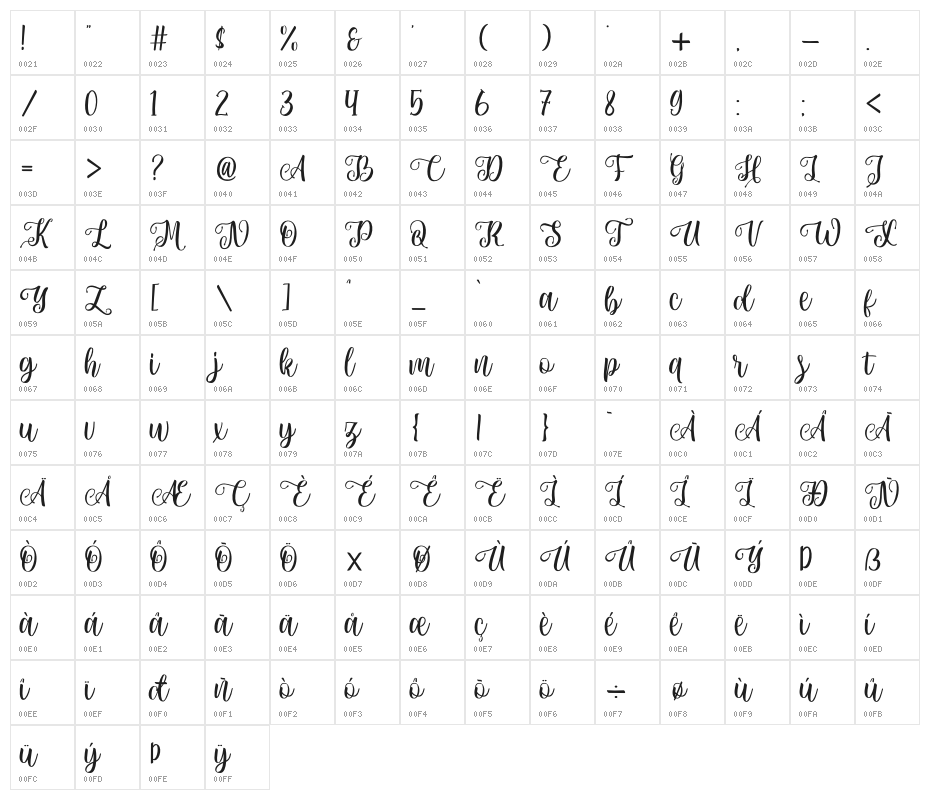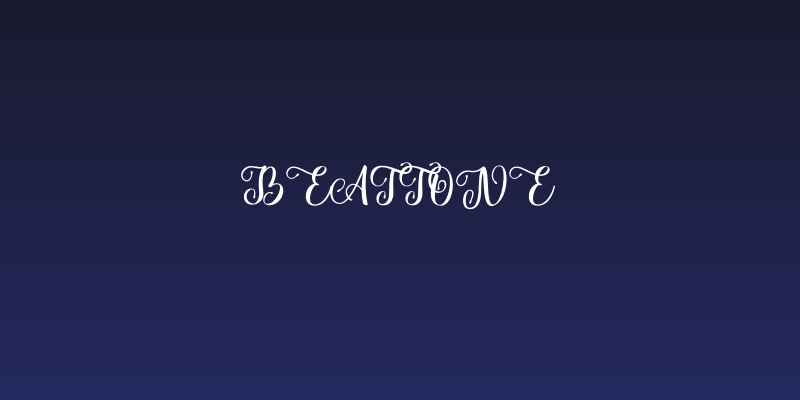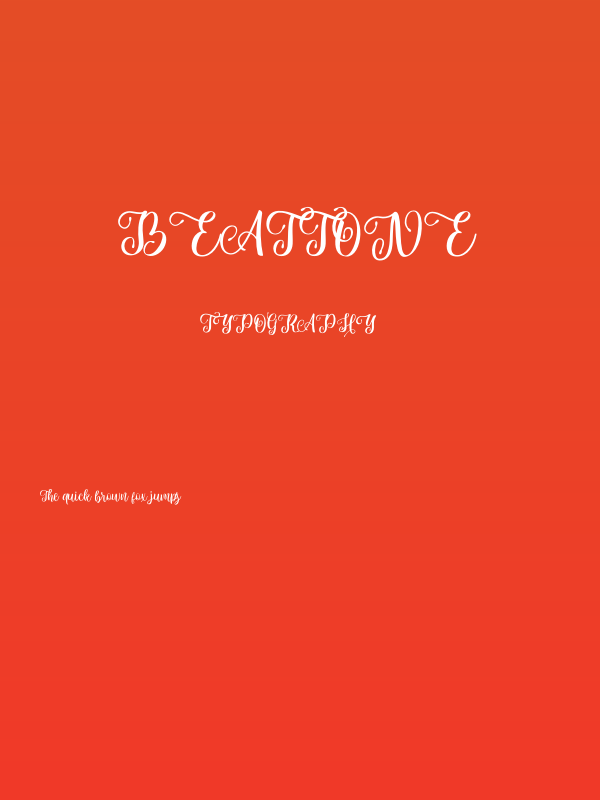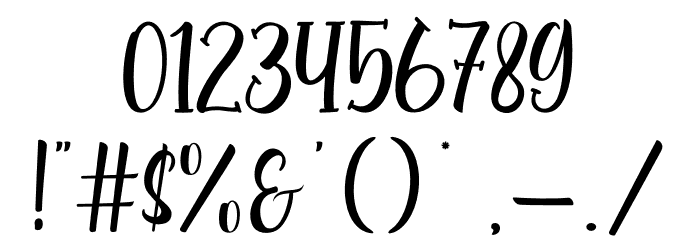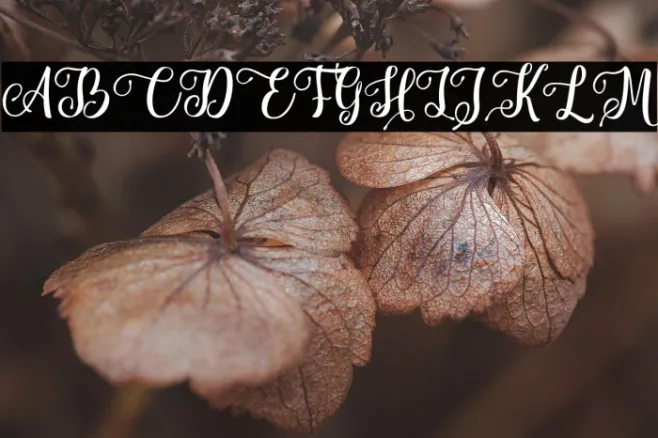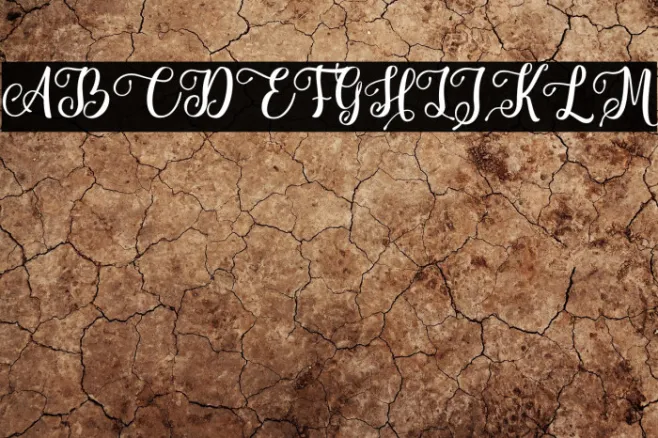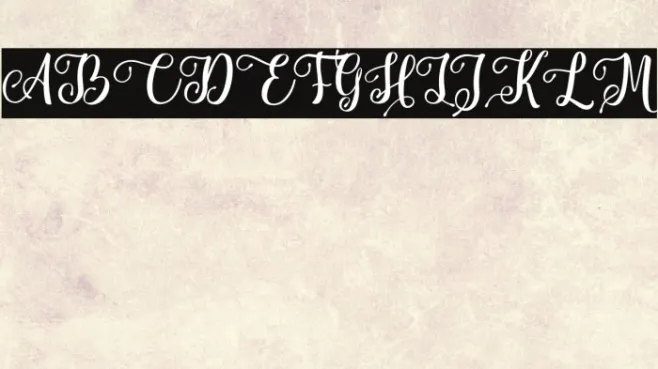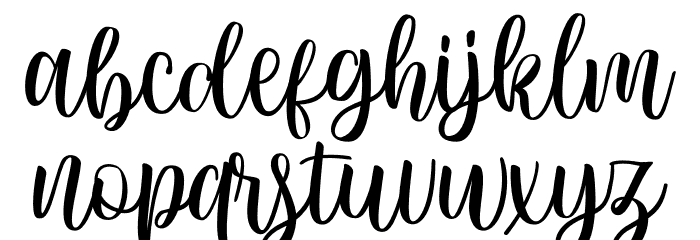
Beattone Font
Beattone Description
This font features an elegant and flowing script style, characterized by its intricate loops and swashes. The uppercase letters are particularly ornate, with each character exhibiting unique flourishes that add a touch of sophistication. The lowercase letters maintain a consistent flow, offering a harmonious balance with the uppercase. Numbers and special characters are designed with the same attention to detail, ensuring a cohesive look across all elements. The overall appearance is both graceful and bold, making it suitable for projects that require a touch of elegance and flair.